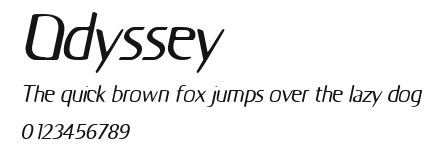
Odyssey Preview
• Font Name: Odyssey
• Font Style: Oblique
• Full Font Name: Odyssey Oblique
About Odyssey.ttf
Odyssey.ttf is a modern, elegant sans-serif font designed for ultimate readability and visual harmony. Perfect for branding, headlines, web design, and print materials.